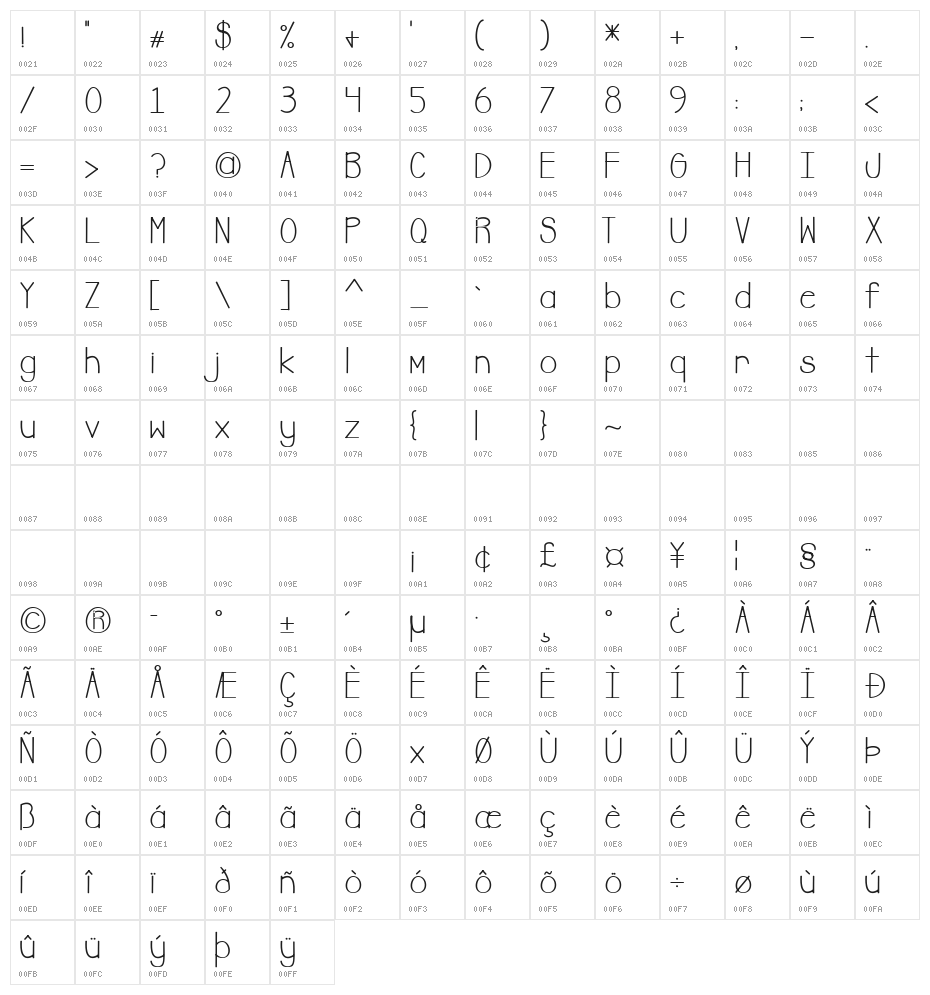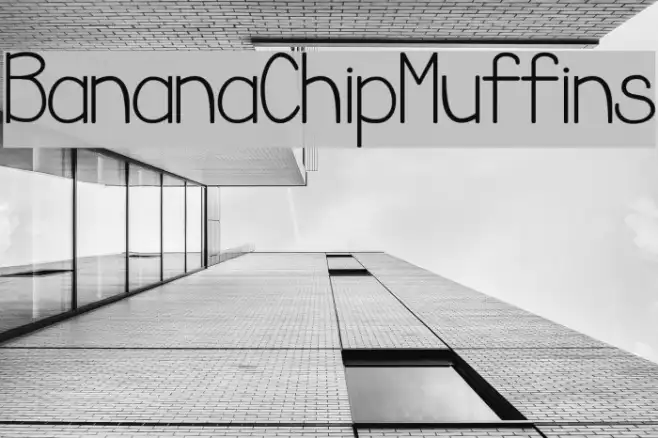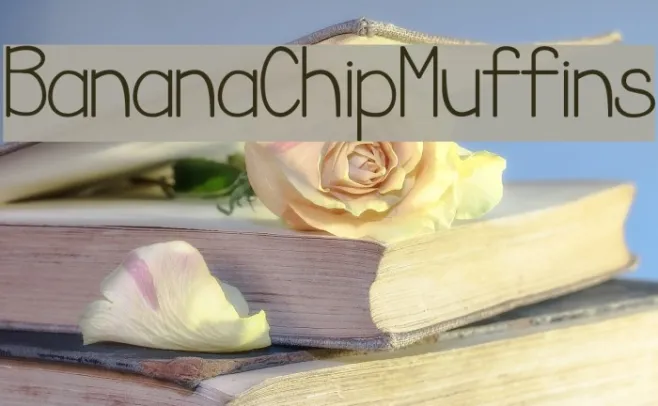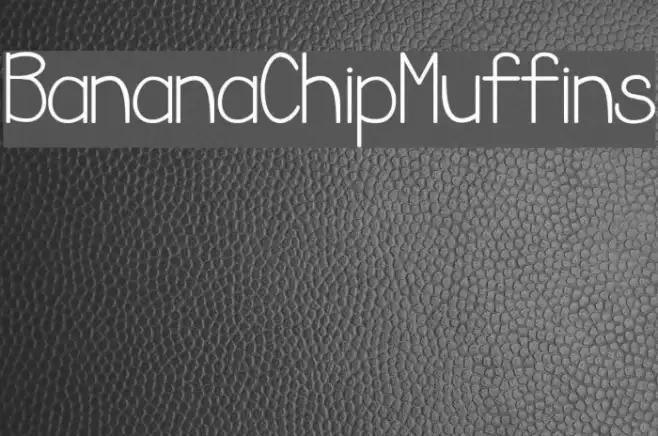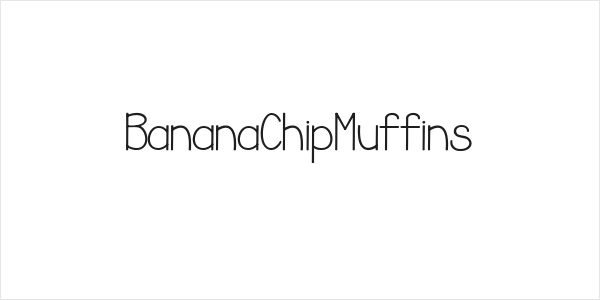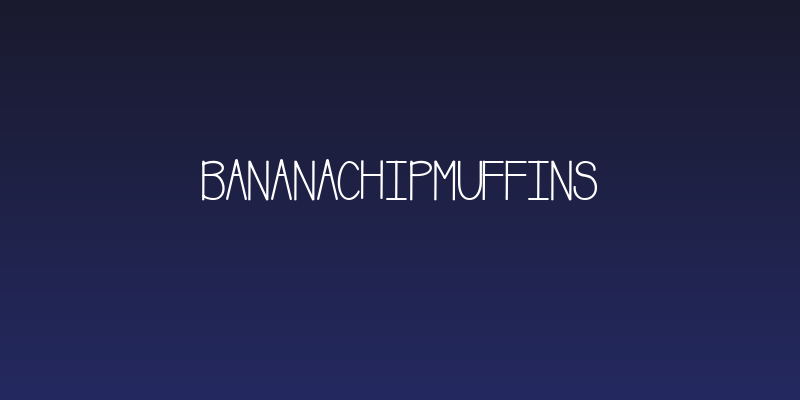
BananaChipMuffins Font
BananaChipMuffins Description
This font features a playful and modern sans-serif style with clean, rounded edges and a consistent stroke width. The characters are tall and narrow, giving it a sleek and contemporary appearance. The uppercase letters are slightly taller than the lowercase, maintaining a uniform height across the alphabet. The numerals are well-proportioned, aligning seamlessly with the letterforms. Special characters are designed with the same attention to detail, ensuring a cohesive look throughout. The overall design is approachable and friendly, making it suitable for a variety of applications.
| Use Case | Headlines, Logos, Web design |
| Proposed Projects | Ideal for children's books, playful branding, casual invitations, and modern web design. |